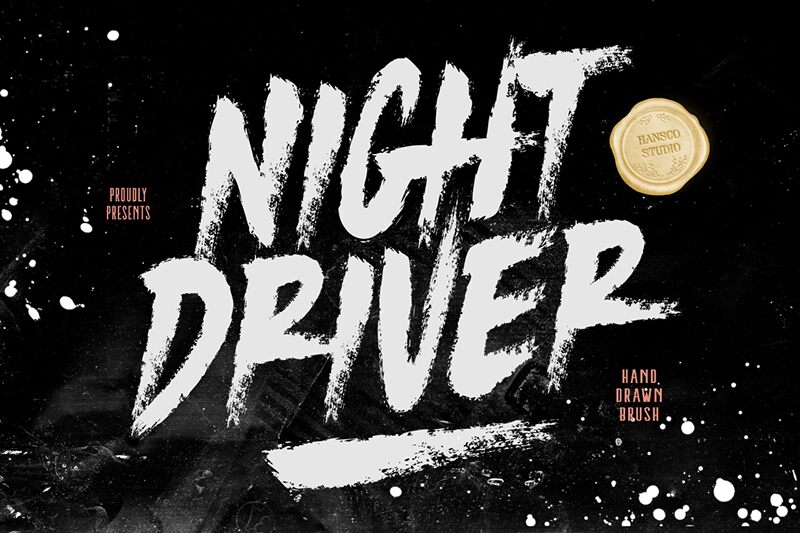
Night Driver
Night Driver font by HansCo is a condensed brush font with a bold, modern aesthetic. Its rough texture and edgy appearance bring an energetic feel to this hand-drawn display font; one that’s hard to ignore. When you need to leave an impression and make a statement with your text, this typeface can be your best option.
Use the free bold font for branding and visual identity design, packaging (especially branded bags), posters with loud and clear messages, headlines in magazines, newspapers or websites, logotypes, product labels including coffee packaging (bags or boxes), apparel category names such as t-shirts.